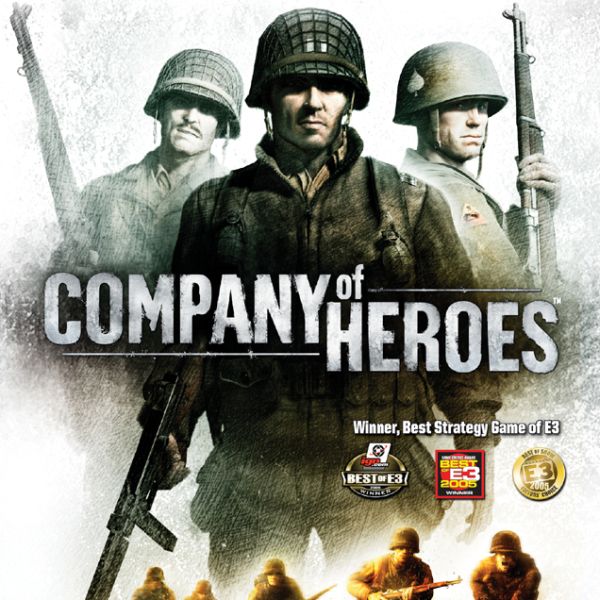
Company of Heroes Font
The game title on the box art of Company of Heroes likely features the Gazz Regular font, a versatile sans serif typeface. It is part of the Gazz font family, which includes variations like Gazz Paint and Gazz Stencil. Additional information about the font can be found here.